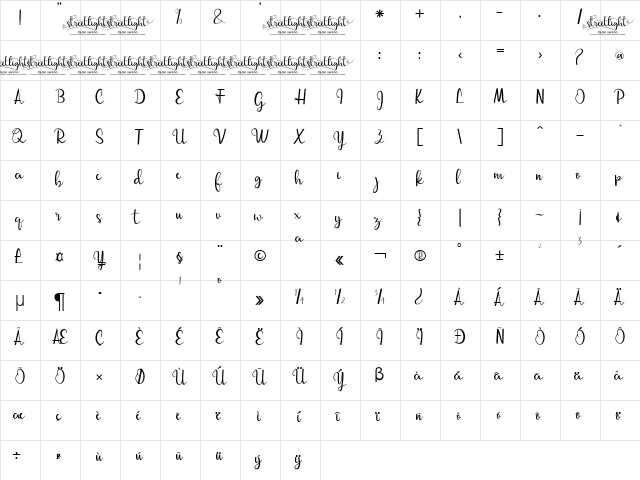
streetlight demo version script
| Style | script |
| Foundry | mrletters_Muhammad Rizal |
| Designer | mrletters_Muhammad Rizal |
Design Context for streetlight demo version Typeface
streetlight demo version flows with the natural rhythm of handwritten lettering, making it ideal for designs that call for warmth and personal expression. Its slender proportions lend an understated elegance to any composition.
Font Pairing: Combine streetlight demo version with a simple geometric sans for maximum contrast — the tension between flowing curves and clean structure is a classic typographic pairing.